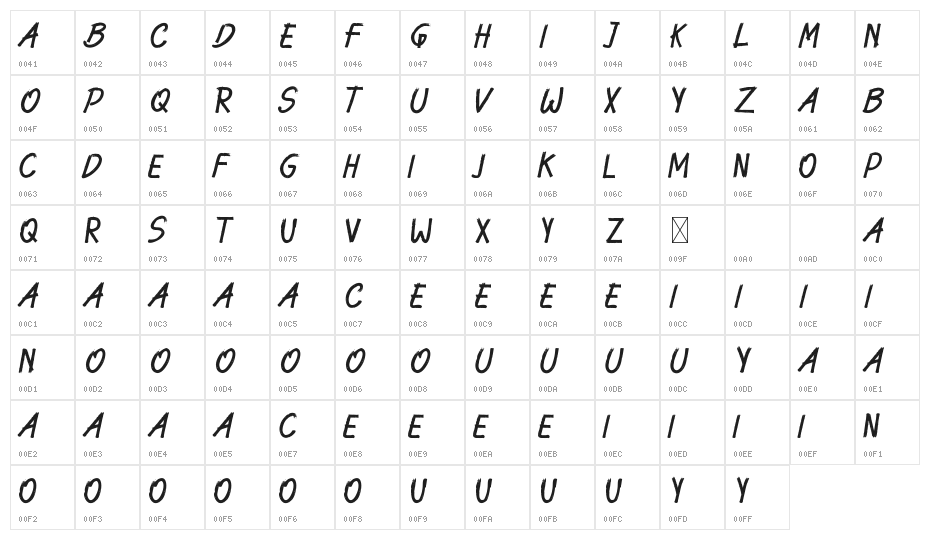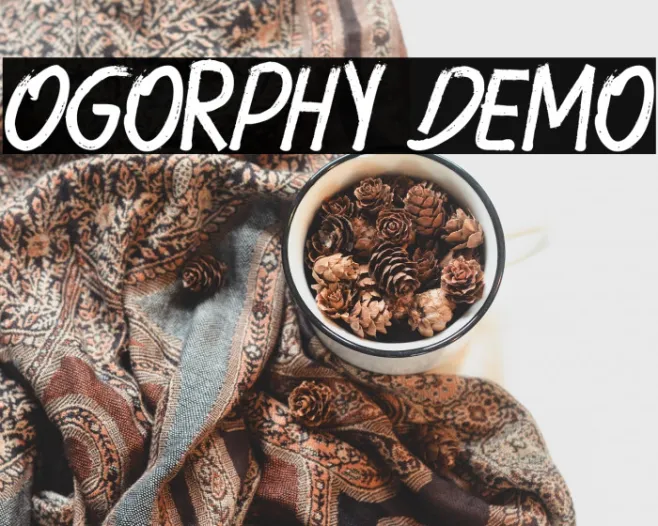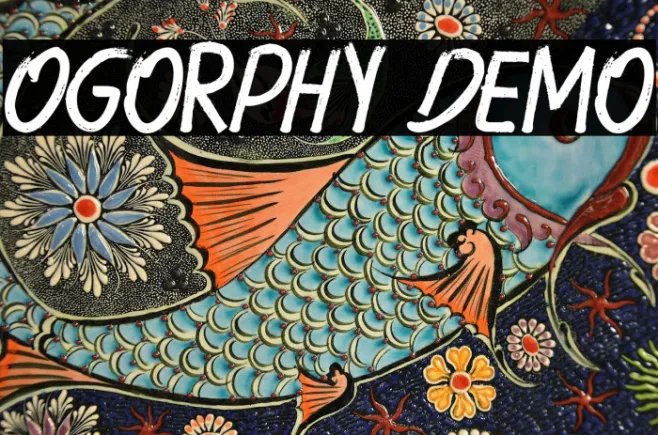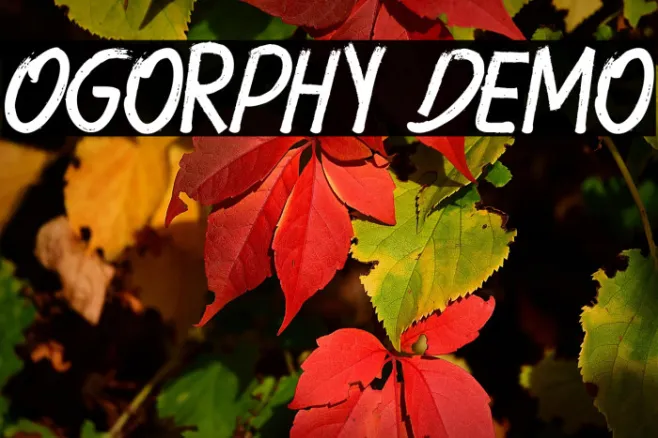
Ogorphy Demo Font
Ogorphy Demo Description
This font features a bold and dynamic brush script style, characterized by its energetic and expressive strokes. The letters have a hand-painted appearance, with varying thickness that adds a sense of movement and fluidity. The edges are slightly rough, giving it an authentic, handcrafted feel. The uppercase letters are prominent and slightly slanted, while the lowercase letters maintain a consistent flow, enhancing readability. The numbers and special characters follow the same stylistic approach, ensuring a cohesive look across all elements. This font is ideal for projects that require a personal touch or a creative flair, such as branding, posters, and artistic designs.
| Use Case | Logos, Headlines, Artistic designs |
| Proposed Projects | Ideal for branding, posters, artistic designs, and any project needing a personal touch. |